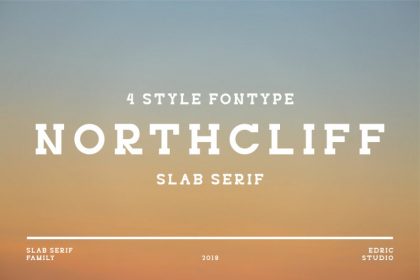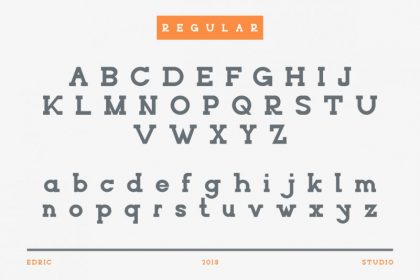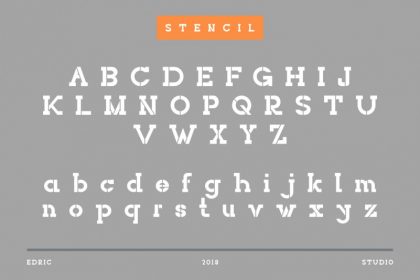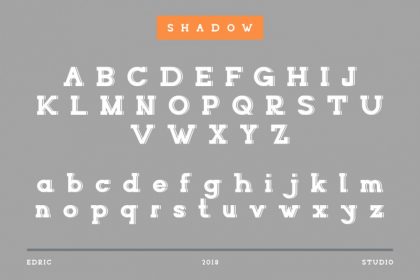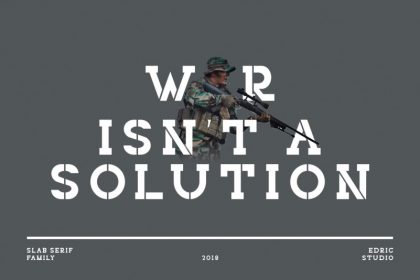
Hi Everyone! What’s up?! Introducing our newest font : Northcliff Slab Font! This is a new modern serif font with 4 yes FOUR styles! Regular, shadow, stencil and stroke. You’ll be amazed!